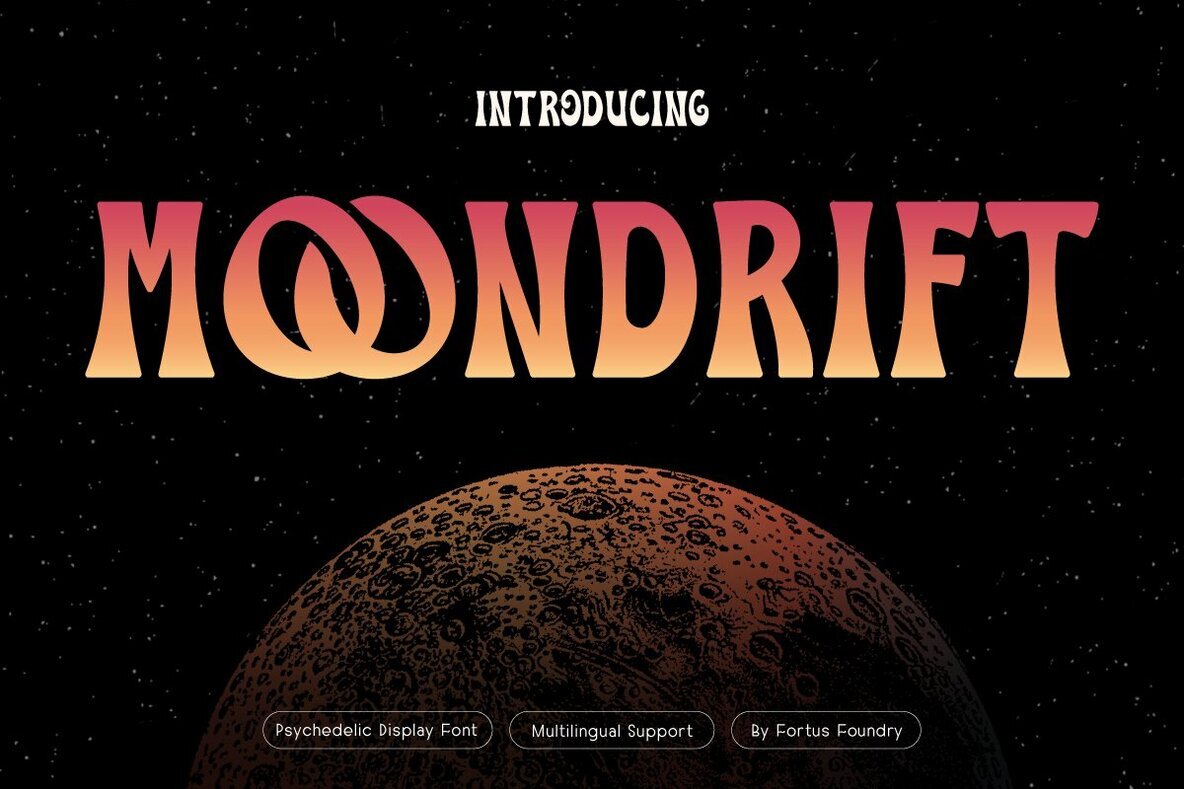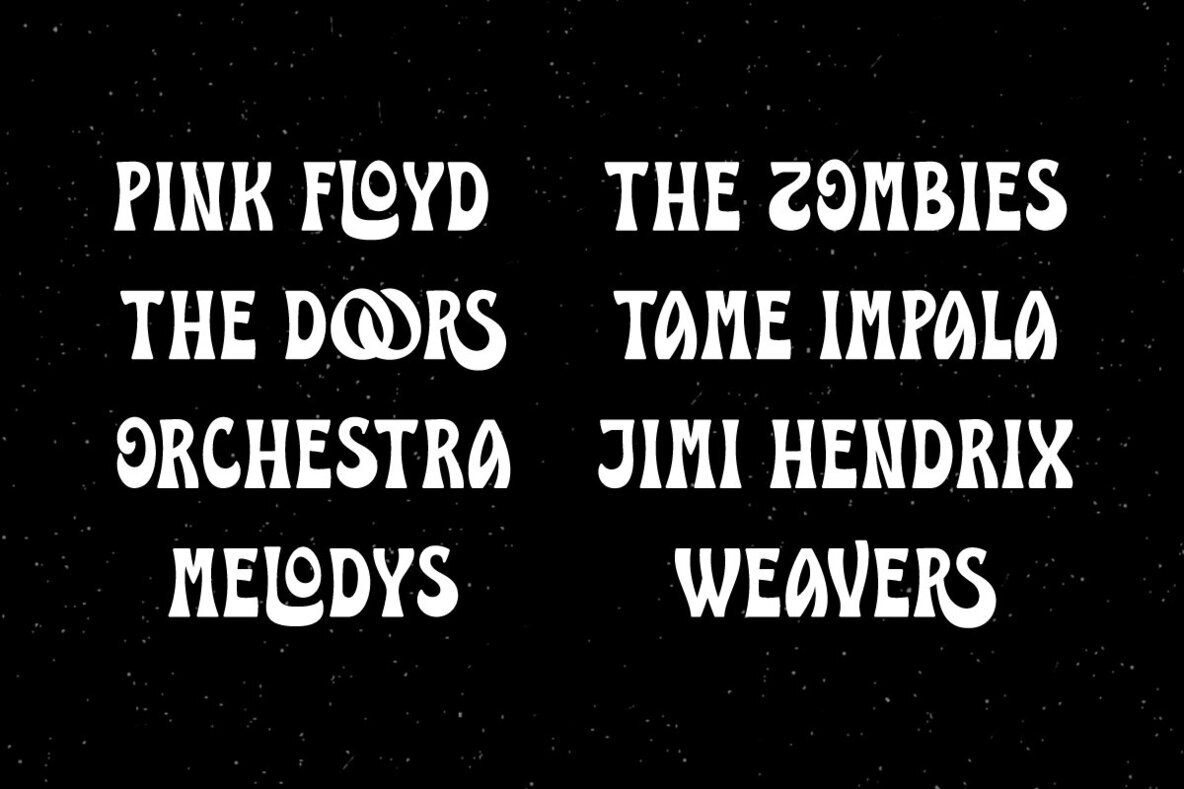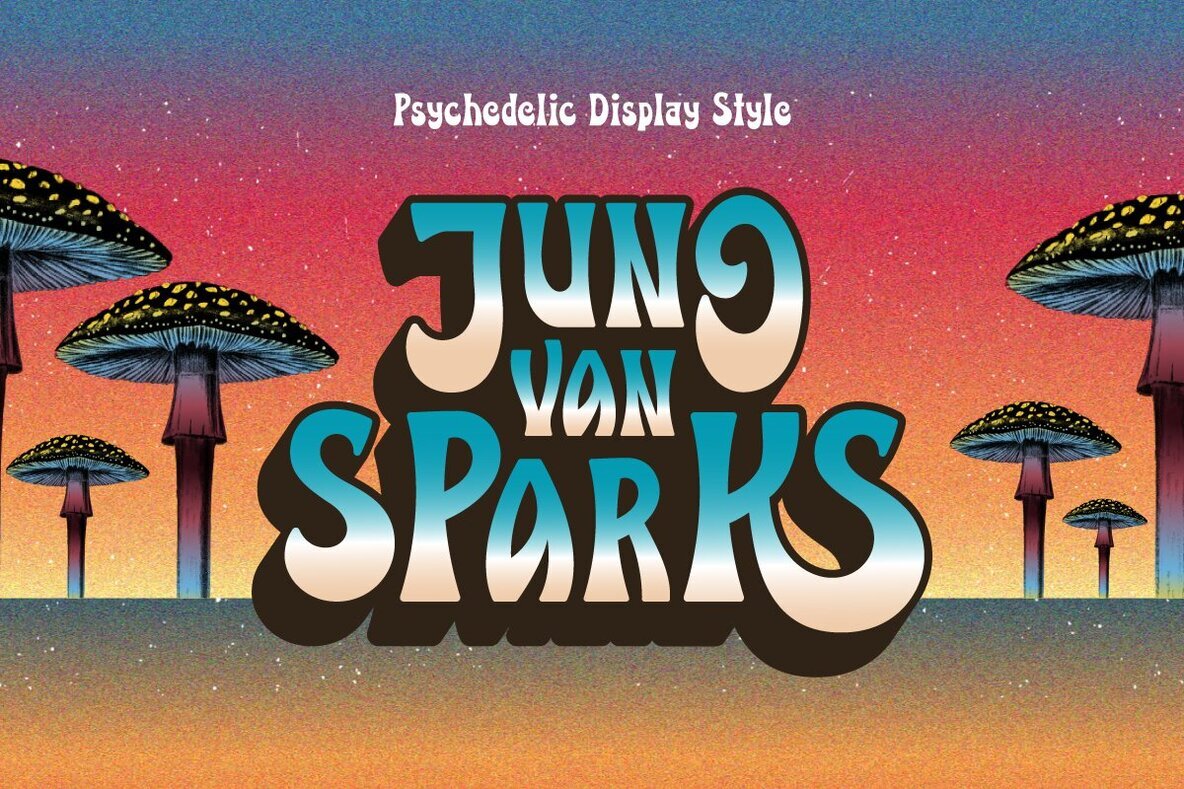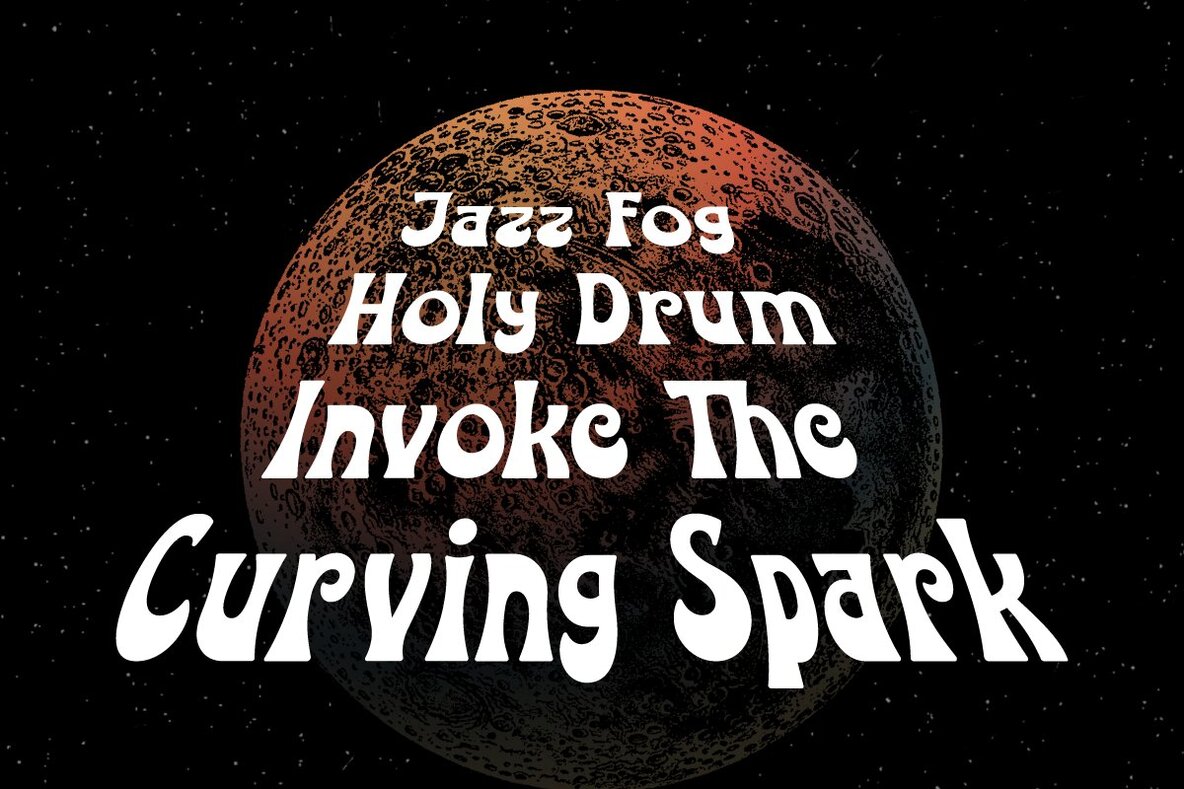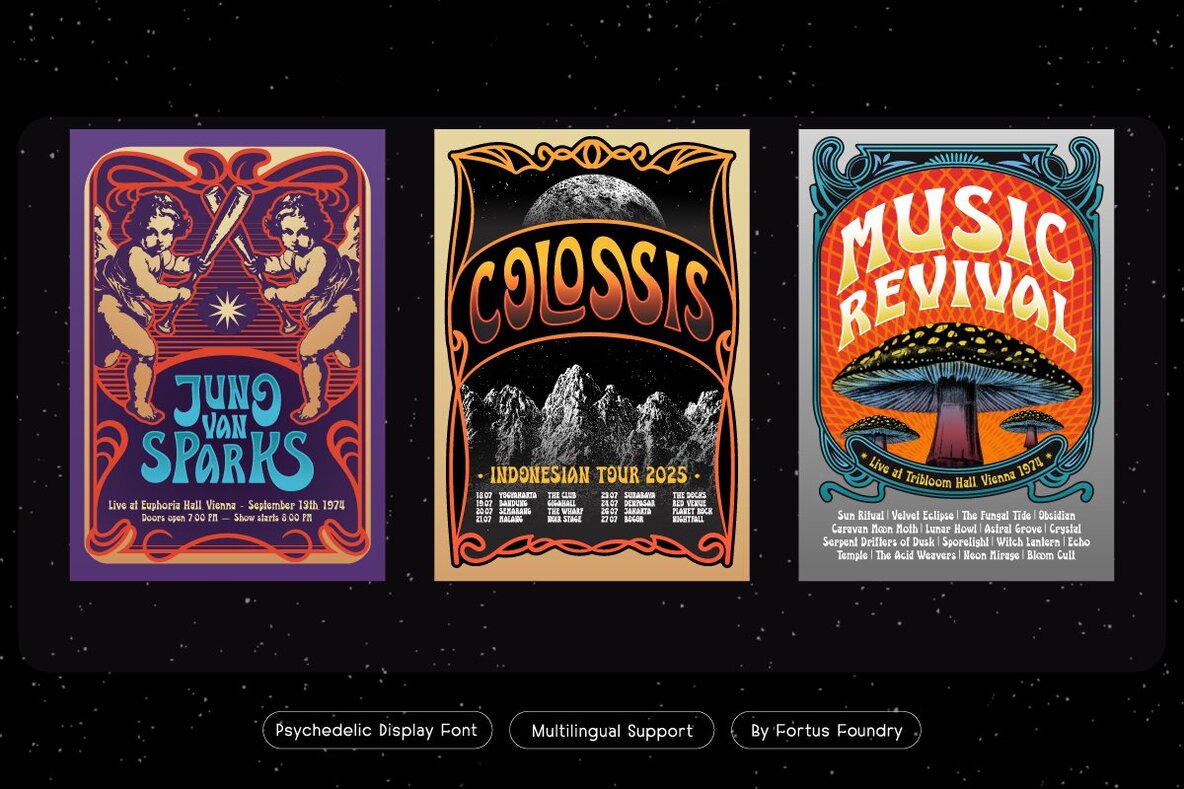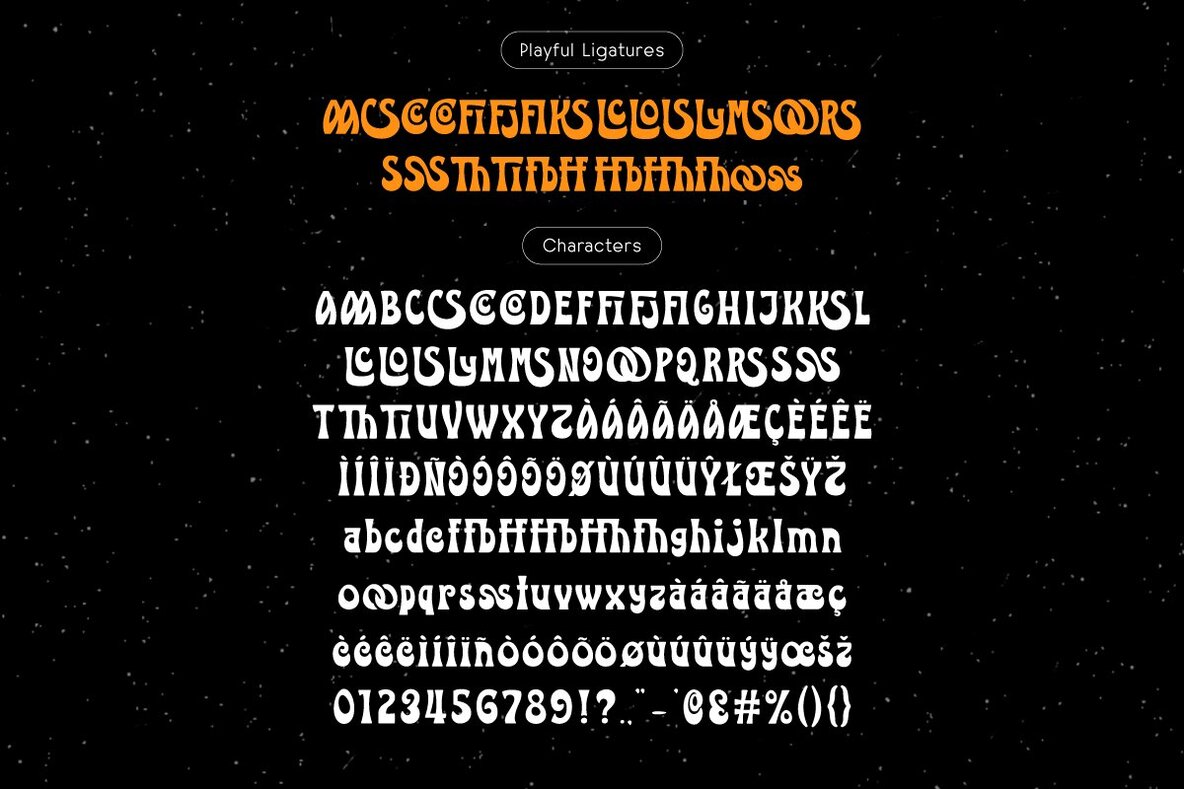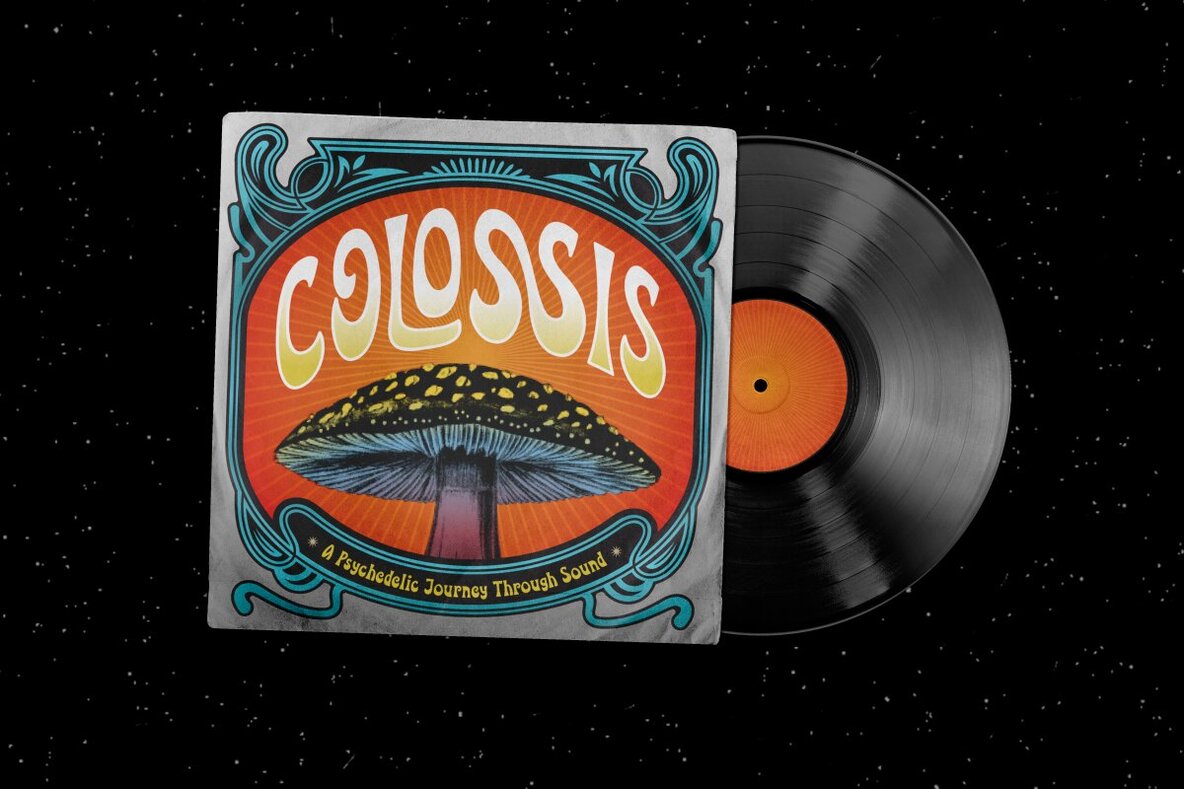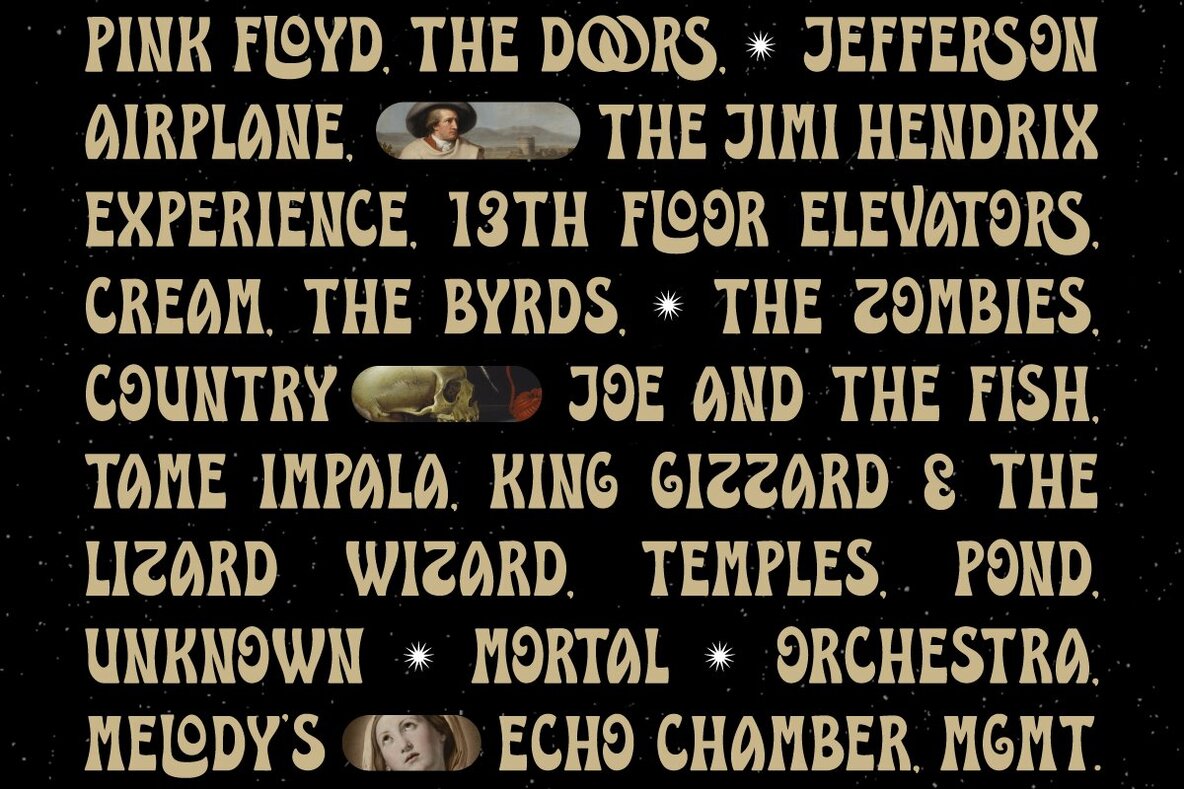
Moondrift Font
MOONDRIFT
Moondrift captures the dreamy spirit of vintage psychedelia, starlit nights, and classic album covers. Its flowing curves and bold shapes bring a sense of movement and warmth to any design. This display typeface stands out with its cosmic touch, blending nostalgia with a modern twist. Ideal for creatives, Moondrift adds personality to posters, branding efforts, music graphics, and more. Each letter carries a lunar-inspired charm that makes a statement while remaining approachable.Moondrift Typeface: Dreamy Retro Display